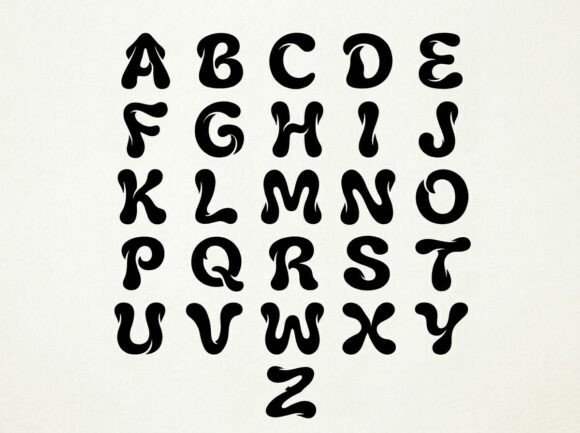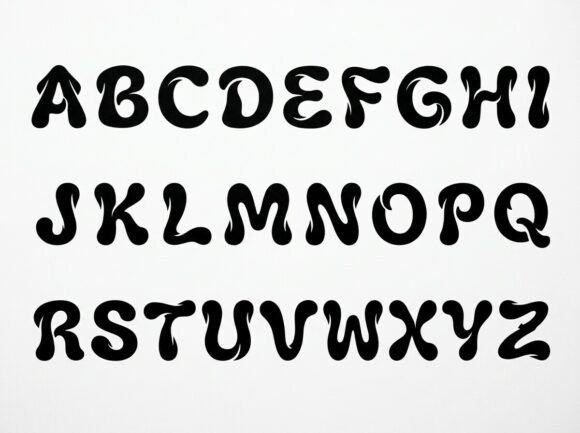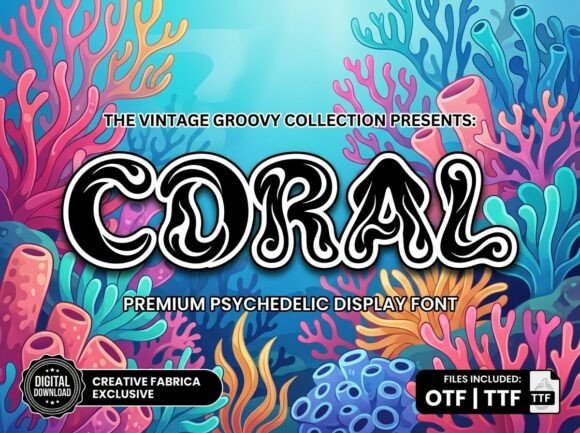
Unleash Your Creativity with Coral Font: A Premium Funky Display Font
Are you tired of using the same old fonts in your design projects? Do you want to inject a dose of high-energy creativity into your work? Look no further than Coral Font, a premium funky display font that’s sure to take your designs to the next level. Characterized by its massive visual weight and liquid, organic silhouette, Coral is the perfect choice for designers and crafters who want to add a touch of personality to their projects.
The Inspiration Behind Coral Font
Coral Font is inspired by the fluid beauty of marine life and the vibrant energy of 70s psychedelic aesthetics. Its bold, rounded letterforms evoke the carefree spirit of the 1970s, while its thick contours and smooth, polished negative spaces create a mesmerizing visual rhythm that’s sure to capture the attention of your audience. Whether you’re designing a logo, poster, or digital header, Coral Font is the perfect choice for anyone who wants to make a statement.
Key Features of Coral Font
• Massive Visual Weight: Coral Font features a bold, eye-catching design that’s sure to stand out in any project.
• Liquid, Organic Silhouette: Its rounded letterforms and smooth contours create a fluid, dynamic look that’s reminiscent of marine life.
• Thick Contours: The font’s thick contours add depth and dimension to your designs, making them more visually appealing.
• Smooth, Polished Negative Spaces: The font’s negative spaces are carefully crafted to create a smooth, polished look that’s easy on the eyes.
Use Cases for Coral Font
Coral Font is an incredibly versatile font that can be used in a wide range of design projects. Here are some ideas to get you started:
• Modern Apparel Branding: Coral Font is perfect for designing bold, eye-catching logos for clothing and accessory brands.
• Edgy Lifestyle Logos: The font’s bold, edgy design makes it a great choice for lifestyle brands that want to make a statement.
• Vibrant Music Festival Posters: Coral Font is sure to add a touch of energy and excitement to your music festival posters.
• Bold Digital Headers: The font’s bold design makes it perfect for digital headers and titles that need to grab the attention of your audience.
Why Choose Coral Font?
So why choose Coral Font for your design projects? Here are just a few reasons:
• Unique and Memorable: Coral Font is a truly unique font that’s sure to make your designs stand out.
• High-Energy Creativity: The font’s bold, edgy design is sure to inject a dose of high-energy creativity into your projects.
• Professional Power: Despite its bold design, Coral Font is a professional-grade font that’s suitable for use in a wide range of design projects.
Get Ready to Make a Statement with Coral Font
If you’re looking for a font that’s sure to make a statement, look no further than Coral Font. Its bold, eye-catching design and liquid, organic silhouette make it the perfect choice for designers and crafters who want to add a touch of personality to their projects. So why wait? Download Coral Font today and get ready to unleash your creativity!